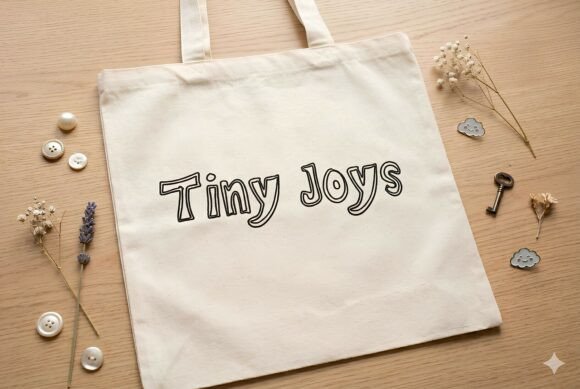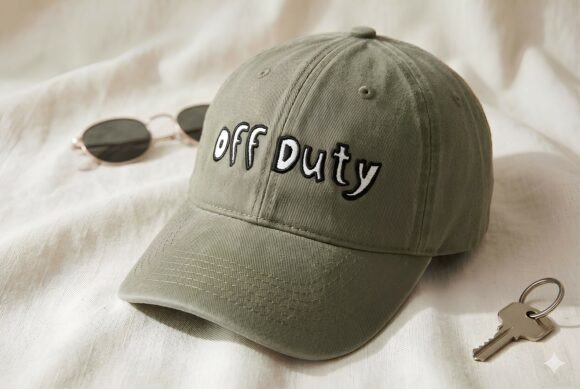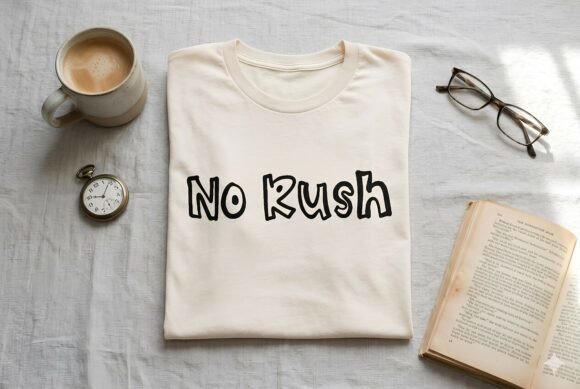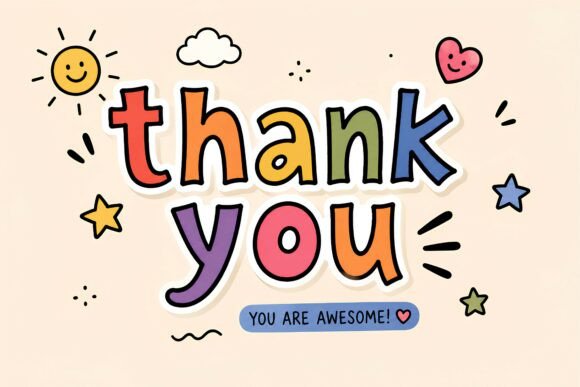
Introduction to Groovy Kid Font
Groovy Kid is a fun, playful, and colorful kids display font designed for cheerful and creative projects.
With its bold hand-drawn style, rounded shapes, and groovy character look, this font is perfect for children-themed designs, school projects, posters, logos, book covers, packaging, stickers, T-shirts, and social media graphics This font brings a joyful and friendly personality to any design.
Key Features of Groovy Kid Font